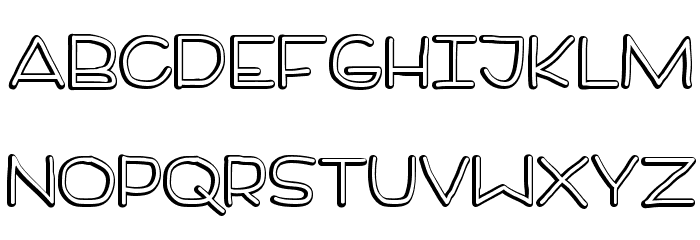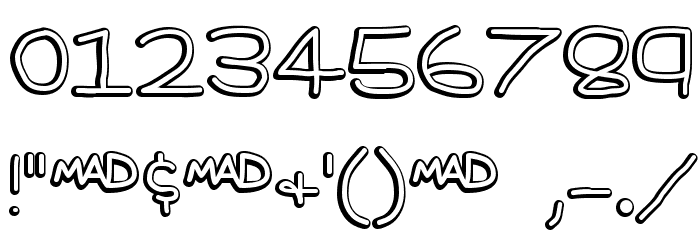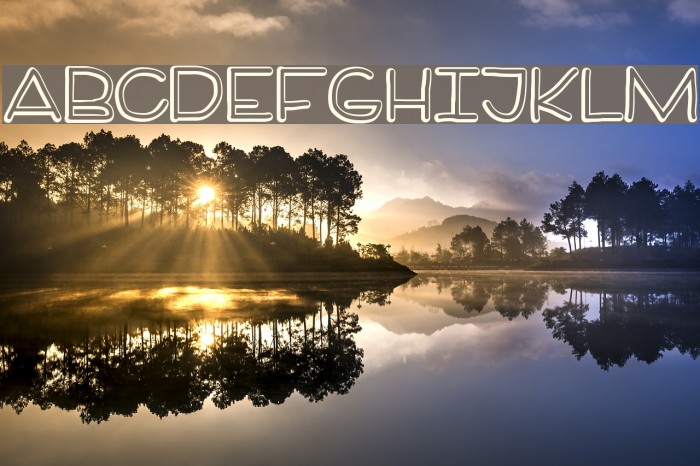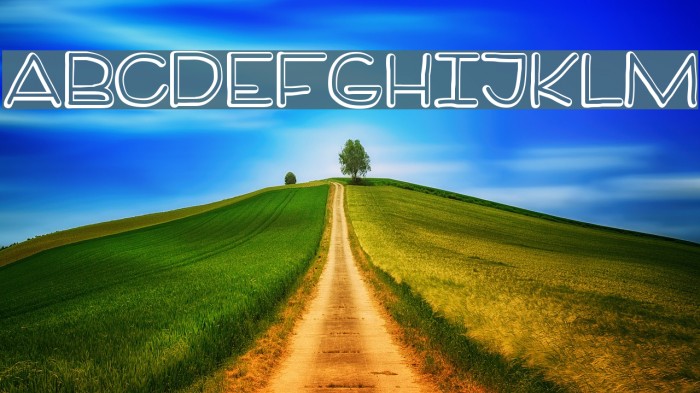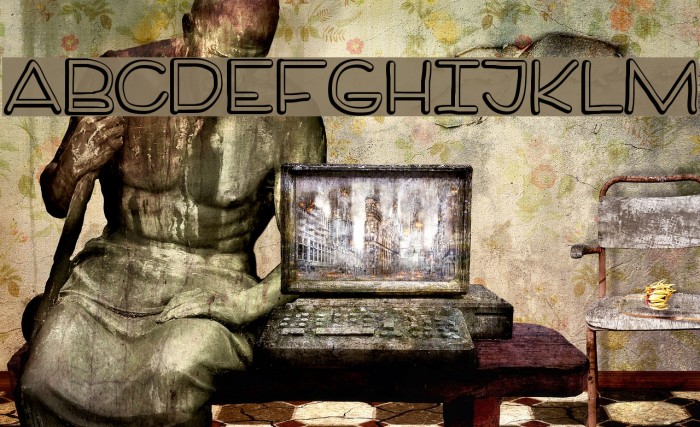
BrotherMan Font
This font features a playful and bold outline style, characterized by its hollow, double-lined appearance. Each character is crafted with a consistent thickness, giving it a uniform and cohesive look. The uppercase and lowercase letters maintain a geometric and slightly rounded form, which adds a friendly and approachable feel. The numerals and special characters follow the same design principles, ensuring a harmonious overall appearance. This font's unique style makes it stand out, making it suitable for projects that require a fun and engaging visual impact.
A playful, bold outline font with a hollow, double-lined style.
- Proposed Projects: Ideal for children's books, comic strips, playful branding, and eye-catching posters.
- Overall Style: Playful, Modern